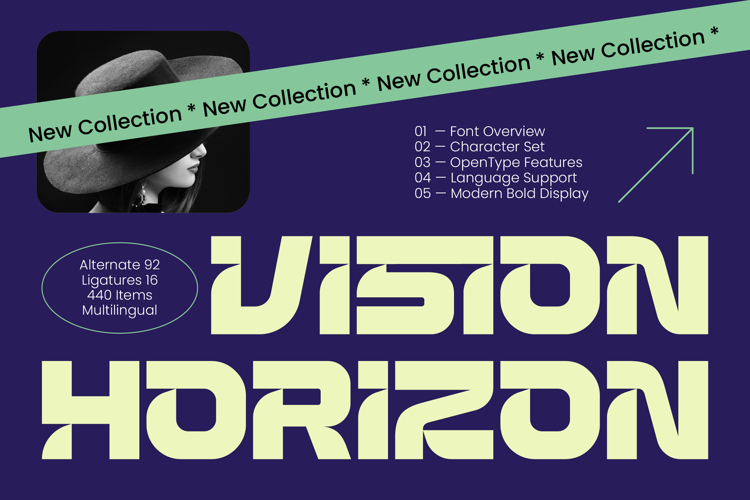
Vision Horizon - Futuristic Display Font
Elevate your creative projects with the striking aesthetic of Vision Horizon - Futuristic Display Font. This modern bold display typeface is designed for those who demand a cutting-edge visual identity that resonates with forward-thinking audiences. Its geometric architecture and high-impact silhouettes create a powerful presence, ensuring your message is delivered with maximum clarity and a bold, technological edge.
Unlock unparalleled creative freedom through an extensive suite of premium OpenType features. Boasting over 440 glyphs, including 92 alternates and 16 unique ligatures, Vision Horizon - Futuristic Display Font provides designers with the tools to craft bespoke typography for every layout. This level of customization allows for seamless brand integration and ensures that every headline feels exclusive and sophisticated.
Expand your brand's reach with a typeface built for the global stage. With its extensive multilingual support, Vision Horizon - Futuristic Display Font adapts seamlessly across global markets, making it incredibly versatile for international projects. Whether you are targeting European markets or emerging tech hubs worldwide, this font maintains its structural integrity and professional aesthetic across diverse linguistic requirements.